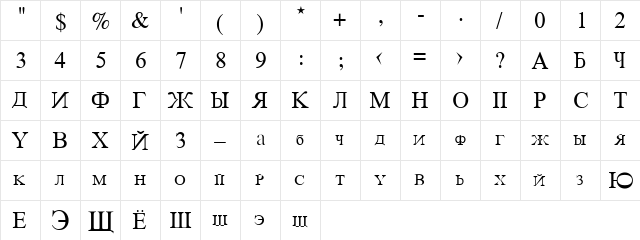
Donskoi Regular
Design Context for Donskoi Typeface
Donskoi offers clean, dependable letterforms without strong stylistic allegiance, making it a practical choice for designers who need flexibility.